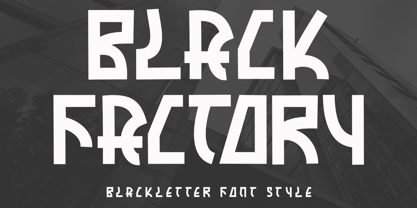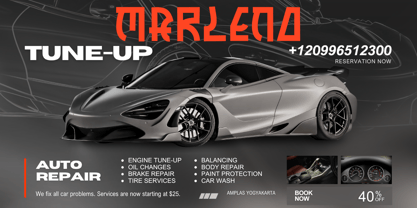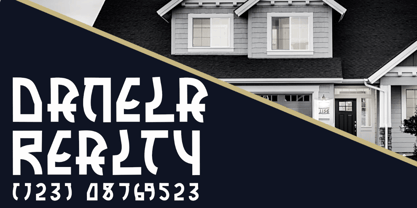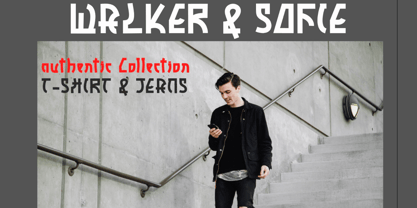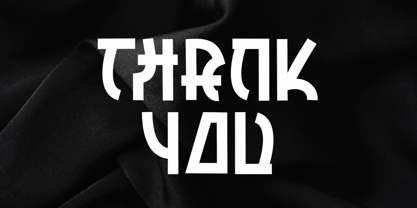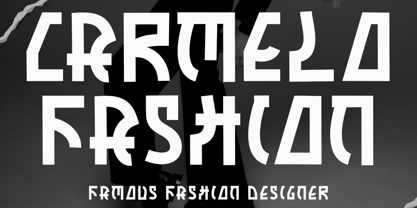
Black Factory
by Yoga Letter
The Black Factory Font Family was designed by Isroni Yoga Prasetya and published by Yoga Letter. Black Factory contains 1 styles. More about this family
"Black Factory" is an elegant and unique blackletter font. This font is equipped with uppercase, lowercase, numerals, punctuations and multilingual support. It is very suitable for business branding, logos, banners, posters, stickers, prints, movie titles, invitations, social media and others.
Designers: Isroni Yoga Prasetya
Foundry: Yoga Letter